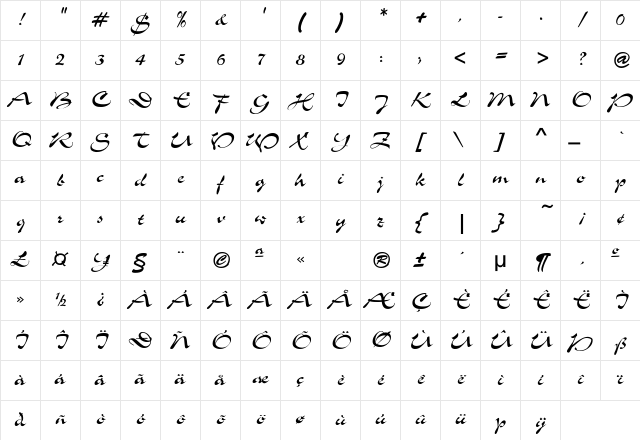
Slogan-Normal Regular
Slogan-Normal Family
Slogan-Normal Regular
Complete Slogan-Normal Regular glyph index. Displaying only characters natively supported by Slogan-Normal Regular font.
Design Context for Slogan-Normal
Slogan-Normal is a composed and adaptable typeface that performs quietly and consistently across a wide range of design contexts.